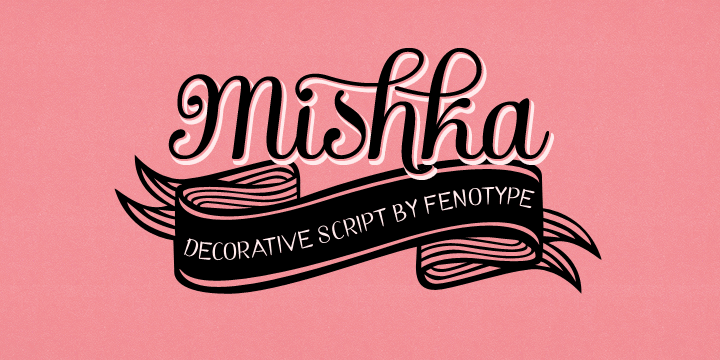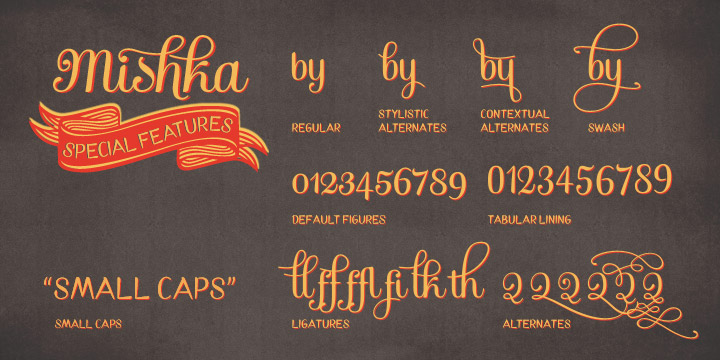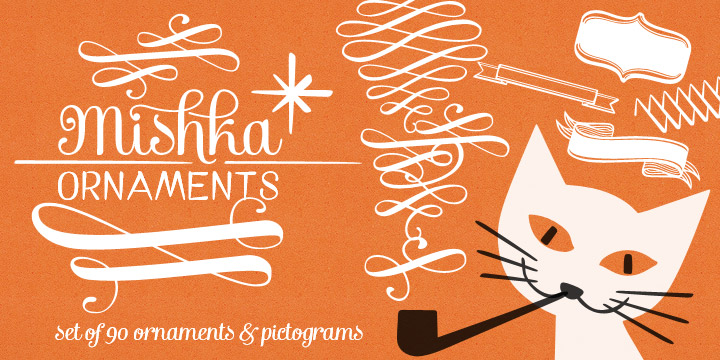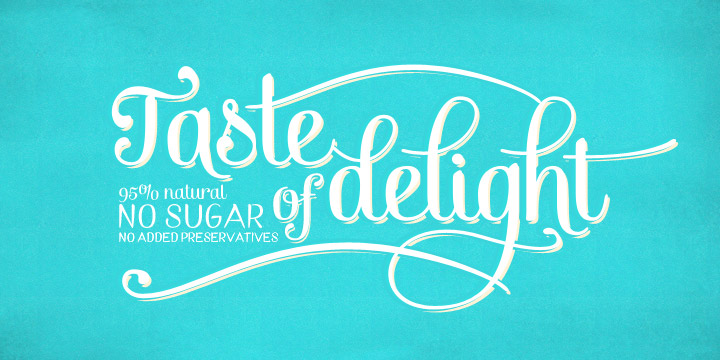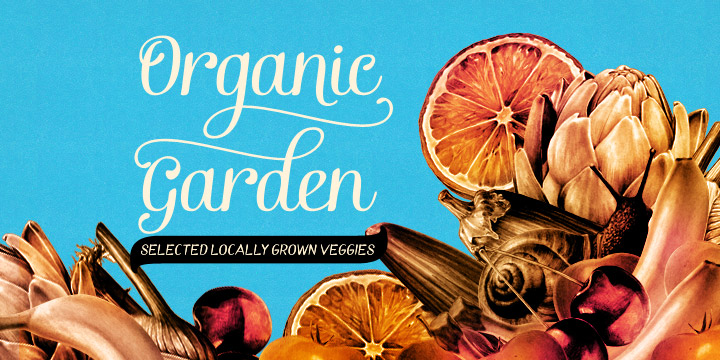
Mishka Complete Family (3 fonts)
Mishka Ornaments is a set of 90 typographical ornaments designed to work perfectly with the script font.
Ligatures, Discretionary Ligatures, Small Caps, Alternates, Contextual Alternates, Swash